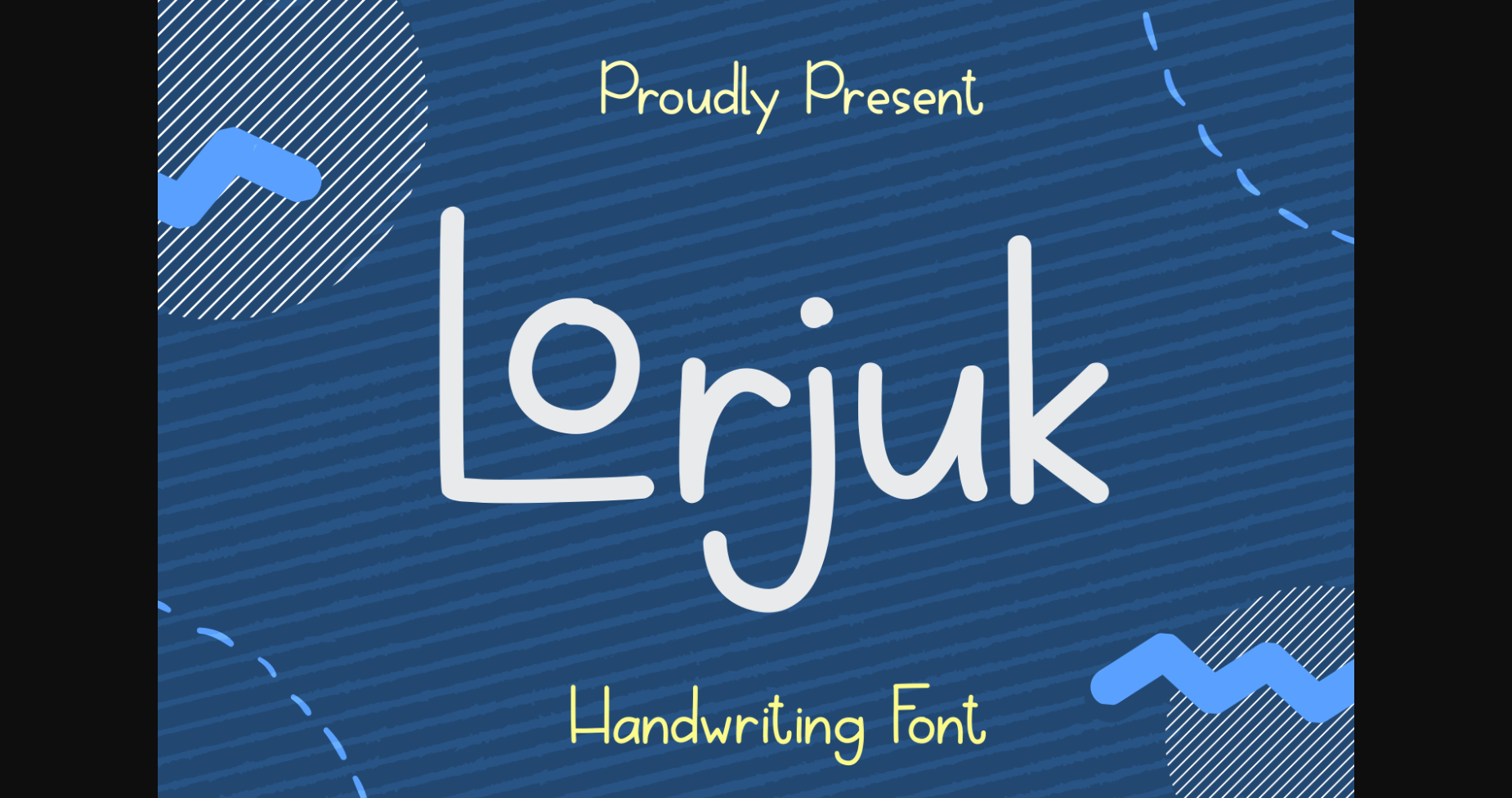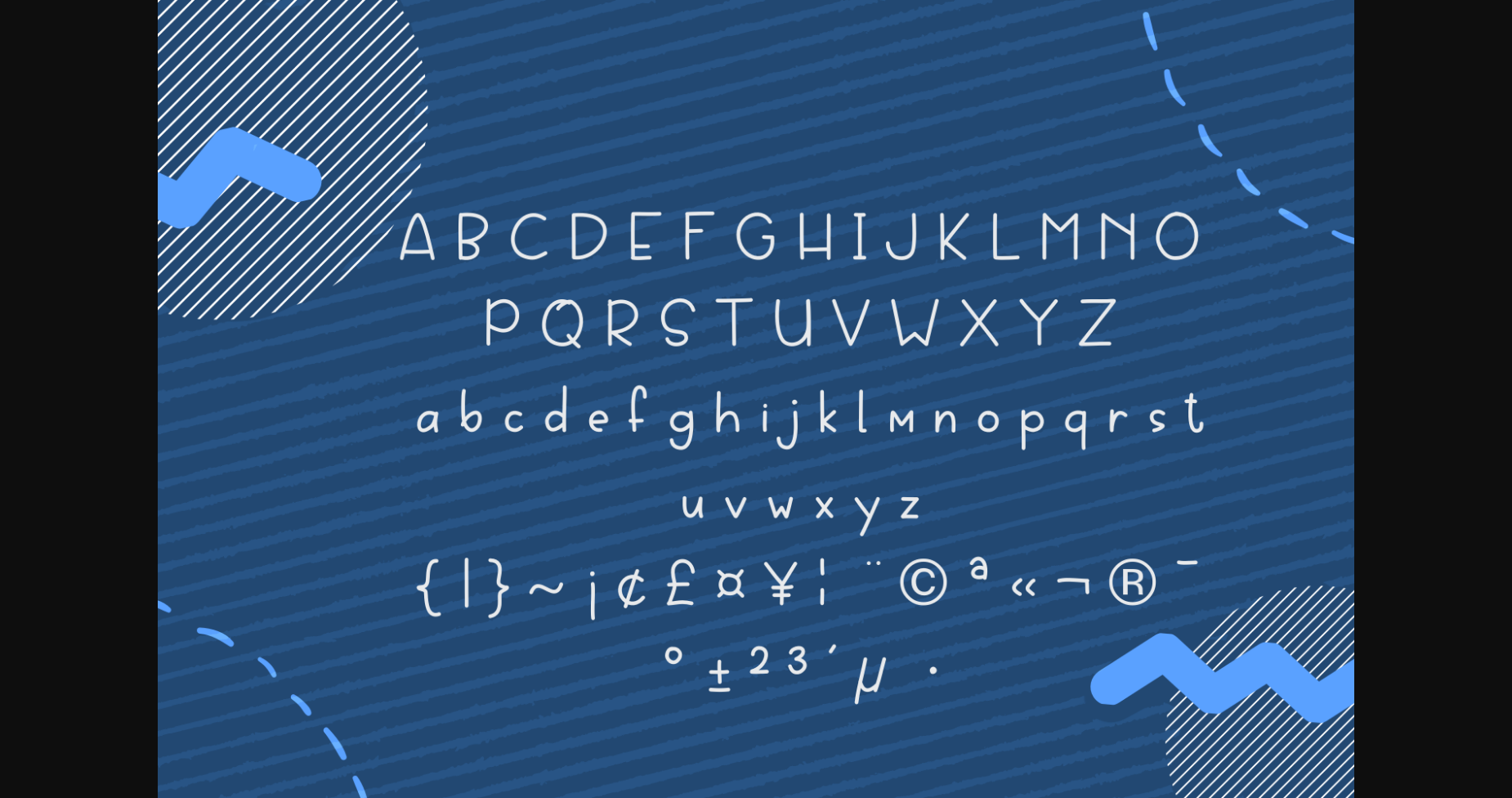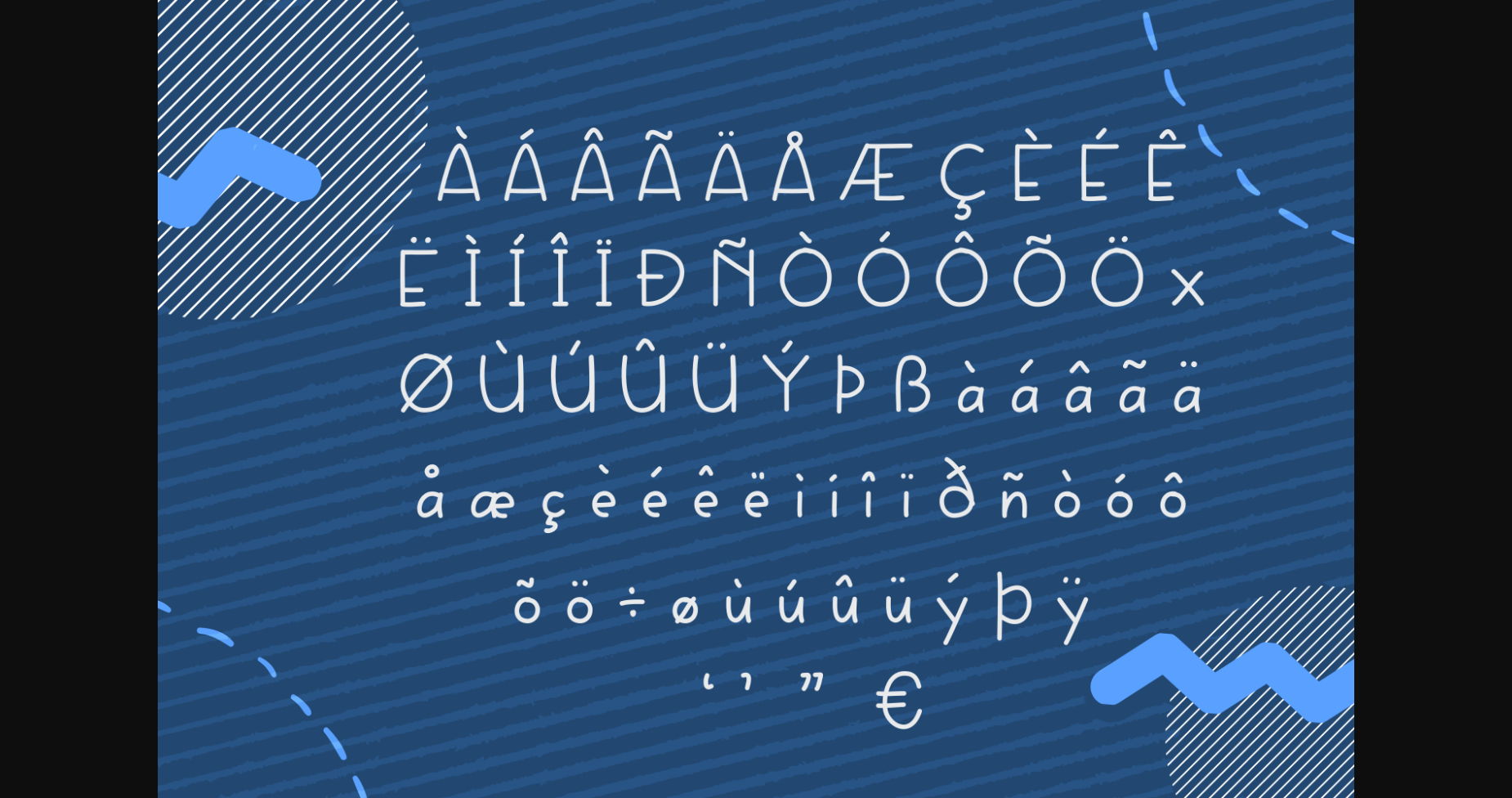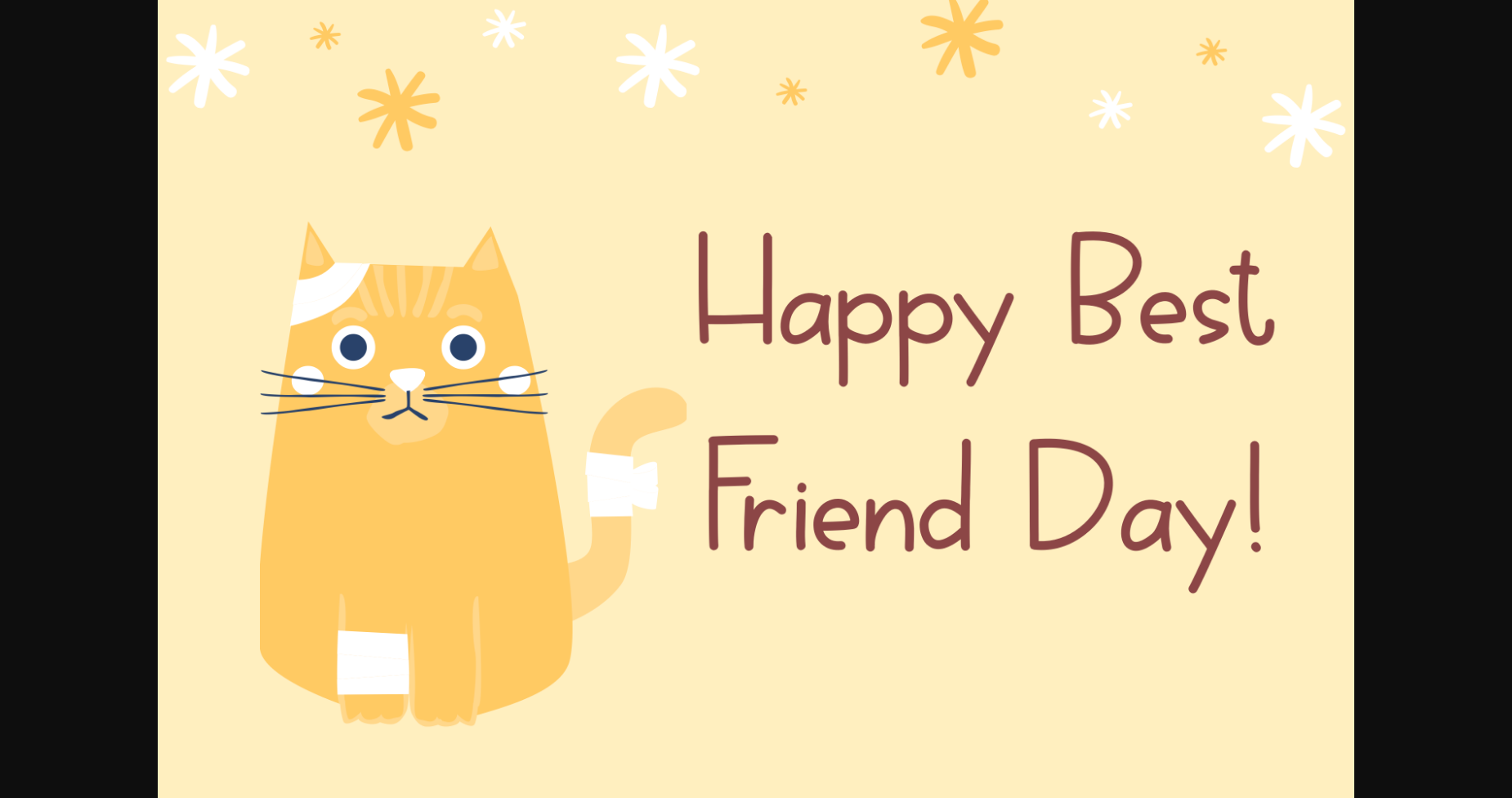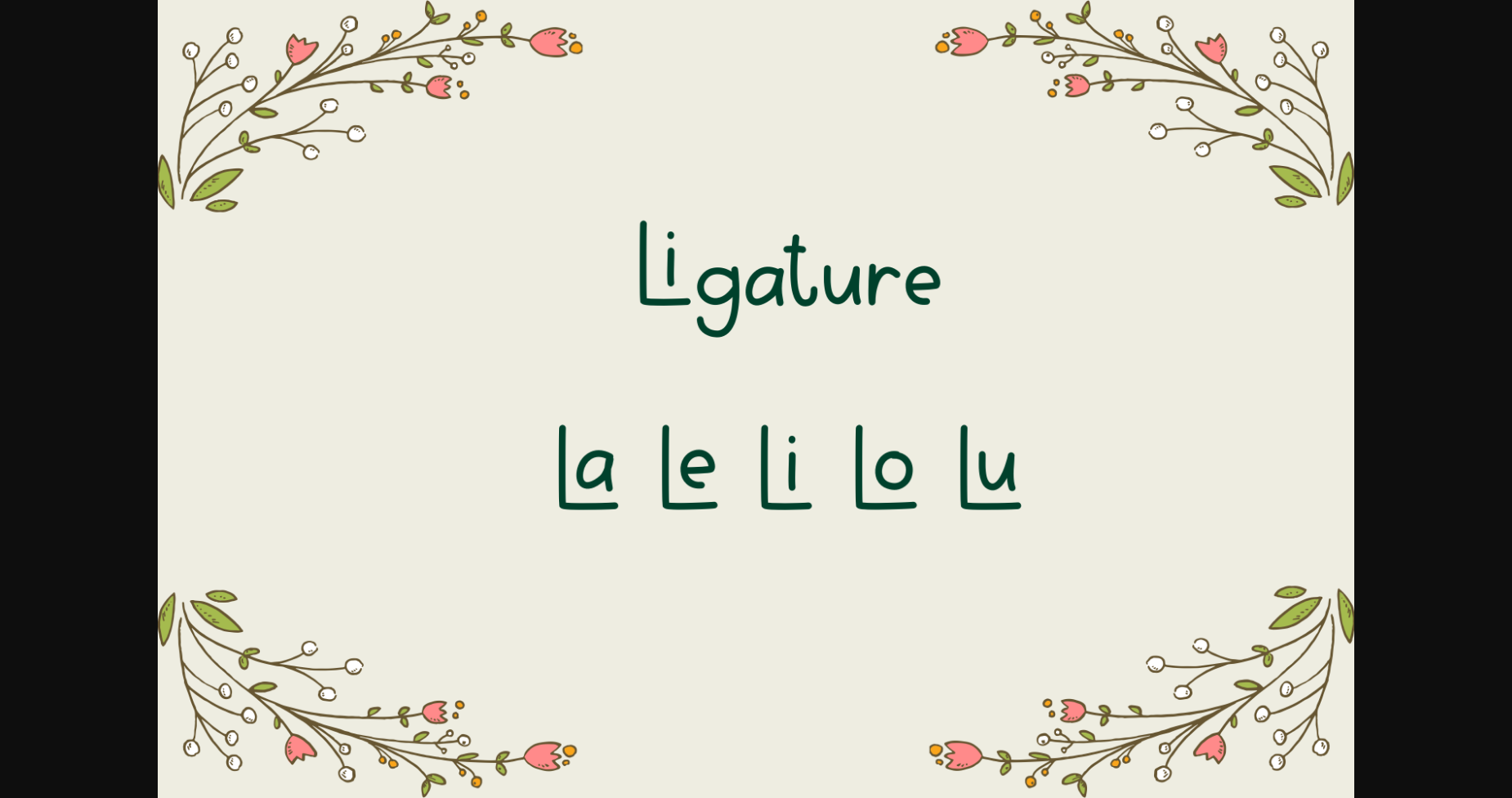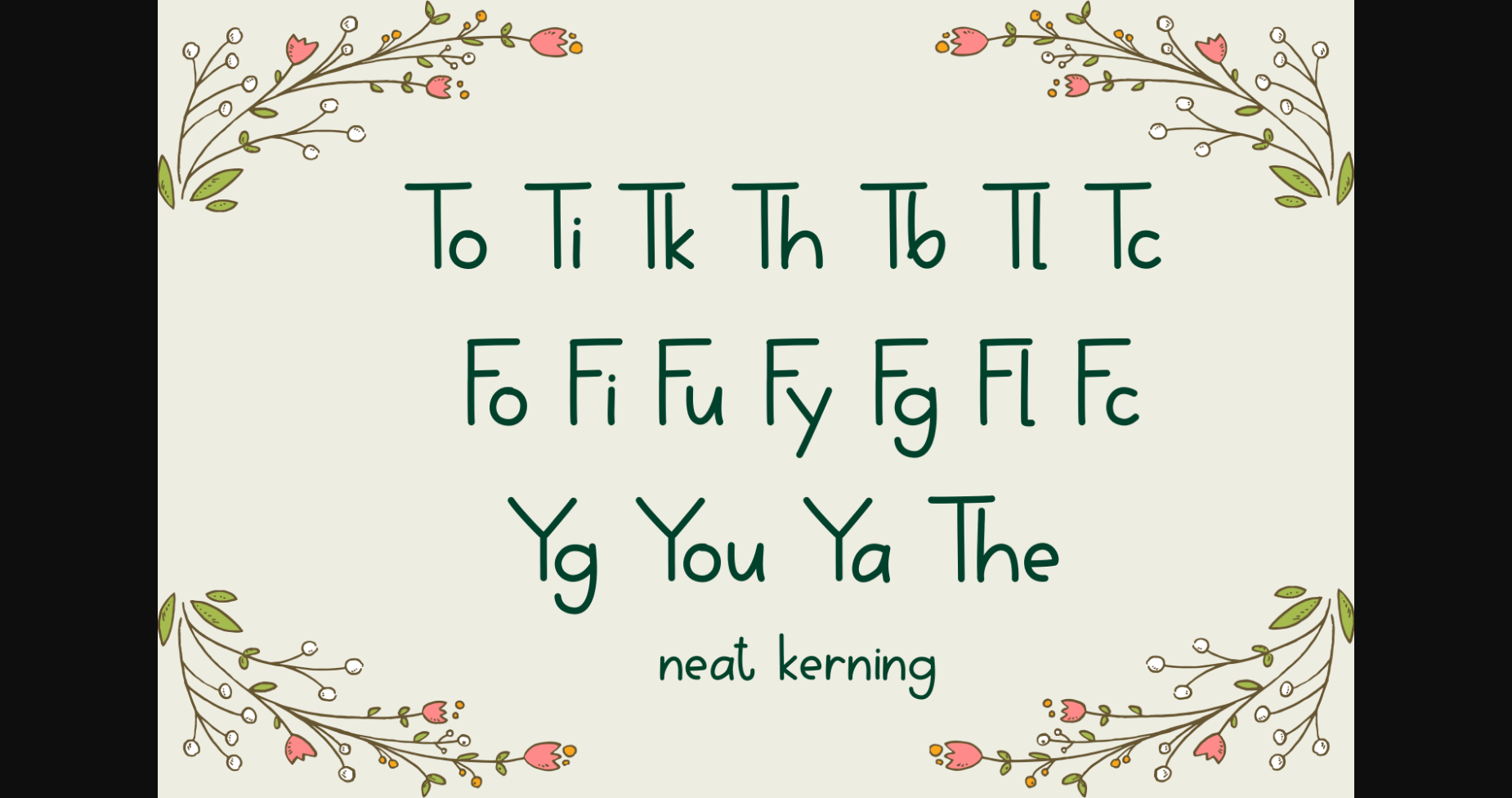
HomeSans Serif FontsLorjuk Font Sans Serif Fonts Lorjuk Font FacebookXPinterestWhatsApp 1 of 9 ... Lorjuk Font Poster 2... Lorjuk Font Poster 3... Lorjuk Font Poster 4... Lorjuk Font Poster 5... Lorjuk Font Poster 6... Lorjuk Font Poster 7... Lorjuk Font Poster 8... Lorjuk Font Poster 9... About Lorjuk Font Lorjuk is a friendly and cute sans serif font. Featuring a curvy, readable, and down-to-earth style, this font will make each of your designs look gorgeous! DOWNLOAD NOW People also explored Chill Blood Font Kromba Font Wistopher Signature Font Rusville Font Pinky Smoke Font Avatara Font Raliqa Font Delution Font Death Markers Font 270 0 TagsLorjukLorjuk Font Previous articleHello Darling FontNext articleMousseline Pro Font LEAVE A REPLY Cancel reply Comment: Please enter your comment! Name:* Please enter your name here Email:* You have entered an incorrect email address! Please enter your email address here Website: Save my name, email, and website in this browser for the next time I comment. Personal Use Free No Virus Personal Use Free Read more about this font Adlanta Personal Use Free Read more about this font Mixed Artistry Personal Use Free Read more about this font Christmas Diary Personal Use Free Read more about this font BLOG How to Cut Any Font on Cricut: Convert a Font to SVG (Free) Turn any font into a clean SVG so it cuts crisp on Cricut - a quick 3-step workflow using a free font-to-SVG tool. Best Fonts for T-Shirt Design – Top 2025 Picks Transform Your Website: Elevate Your Typography with 7 Best Web Font Generators How to Install and Use Fonts on Windows, macOS, and Web Projects